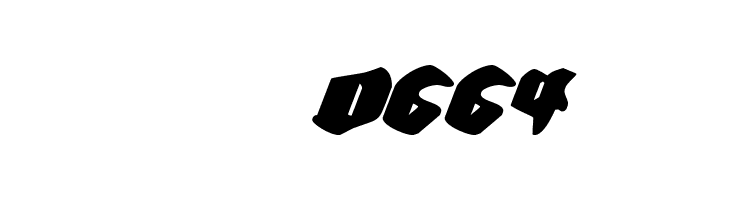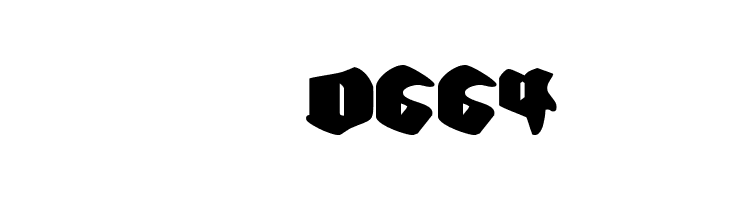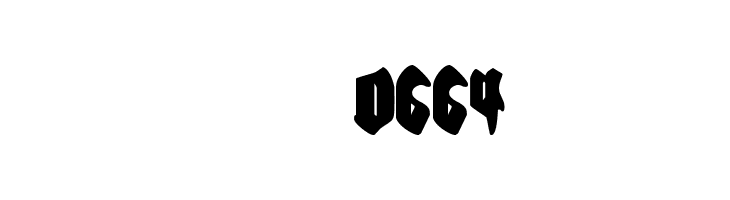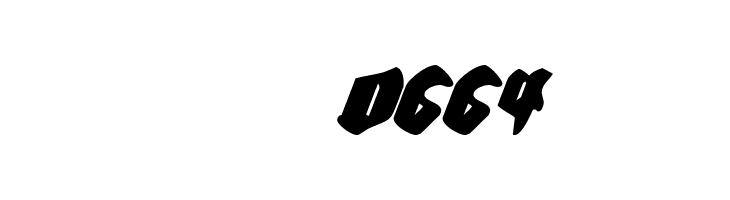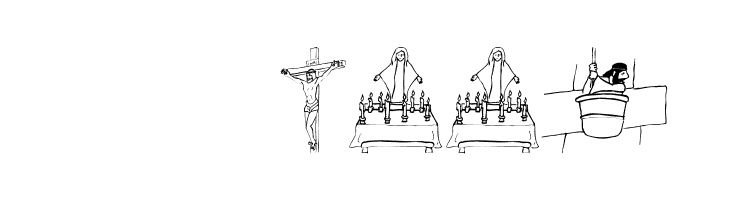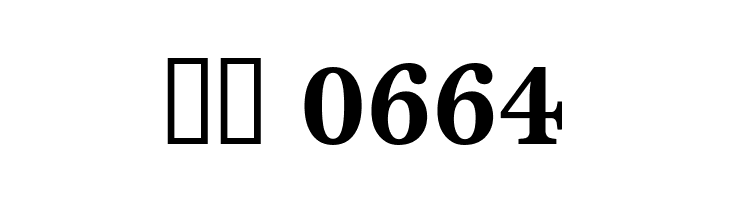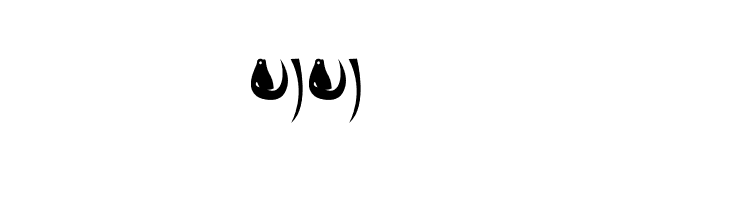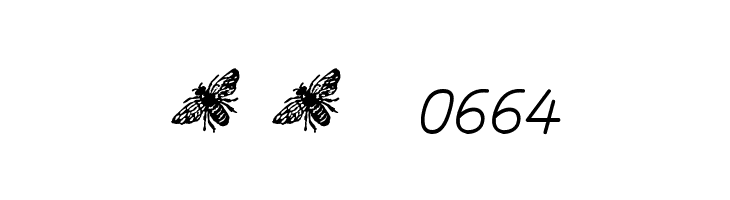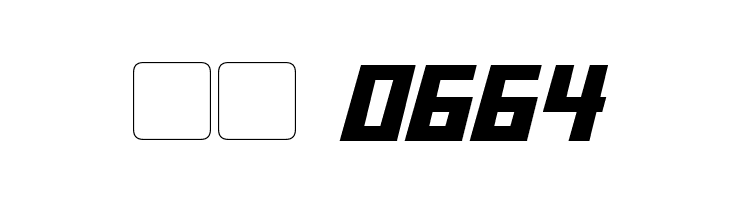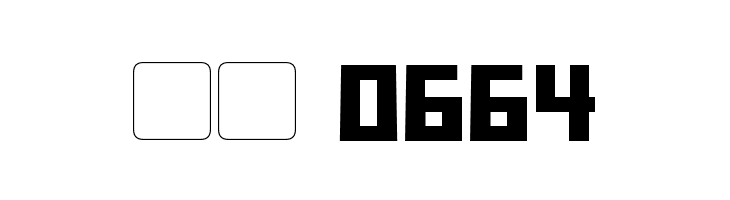
A bold, high-contrast font with strong, dynamic strokes and a commanding presence.
A bold, geometric font with strong, uniform strokes and a modern aesthetic.
A decorative and whimsical font with elegant flourishes and loops.
A flowing, cursive font with elegant, elongated strokes and a sophisticated yet approachable style.
A modern, elegant script font with a flowing, cursive style.
A bold, 3D beveled font with a striking, sculptural appearance.
A bold, impactful font with thick strokes and tight spacing, ideal for serious messages.
A bold, impactful font ideal for urgent and authoritative messages.
A whimsical pictogram font inspired by classic TV show scenes, featuring playful silhouettes.
A whimsical and playful script font with elegant flourishes and loops.
A bold, three-dimensional block font with a modern, impactful design.
A bold, textured font with a handcrafted feel and strong presence.
A decorative font with stylized animal head motifs, ideal for creative display use.
A bold, rounded font with a playful and energetic style.
A bold, playful font with rounded edges and a smooth, flowing style.
Elegant handwritten script with connected, flowing strokes.
A pictorial font using biblical scene illustrations as glyphs.
A dynamic and flowing script font with elegant curves and smooth transitions.
A decorative font with unique bicycle silhouettes for each character.
A bold, geometric font with strong, angular lines and a blocky appearance.
A bold, italicized font with sharp, angular characters and a dynamic style.
A flowing, cursive font with elegant, connected characters.
A playful, cursive font with elegant connections and a whimsical style.
A bold serif font with strong strokes and classic elegance.
Intricate glyphs inspired by ancient Mayan script, featuring detailed and artistic designs.
A decorative font inspired by ancient Mayan glyphs, featuring intricate and artistic designs.
A modern, handwritten font with a casual, flowing style.
A bold, ornate Blackletter font with dramatic, angular letterforms.
A bold, condensed Blackletter style font with sharp, angular lines and intricate detailing.
A bold, condensed, italic Blackletter-style font with a vintage gothic aesthetic.
A bold, expanded blackletter font with a traditional Gothic style.
A bold, italicized font with high contrast and decorative, angular features.
A bold, italic blackletter font with sharp, angular lines and a vintage feel.